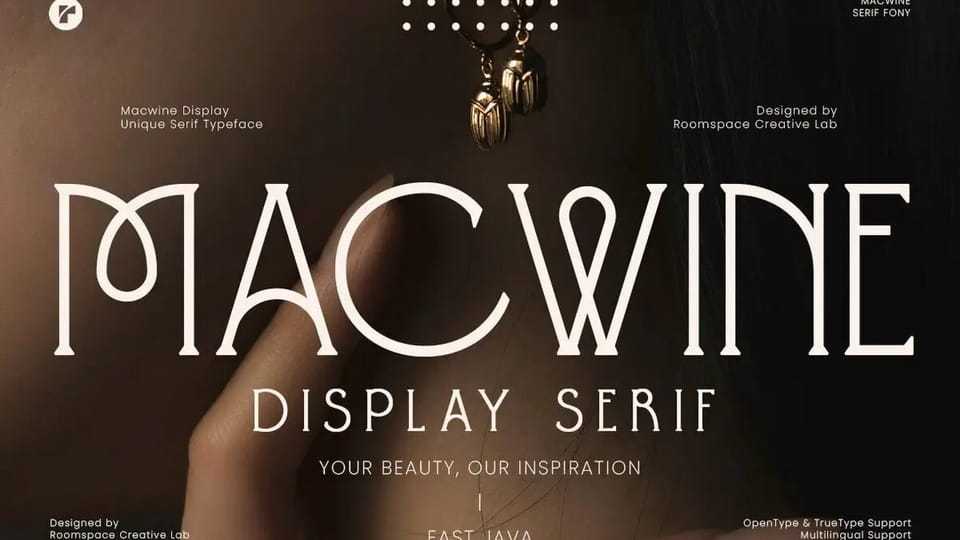
Download Macwine font, a refined serif display typeface designed to bring elegance and sophistication to your designs. Featuring unique ligatures and artistic letterforms, this font is perfect for high-end branding, magazine titles.